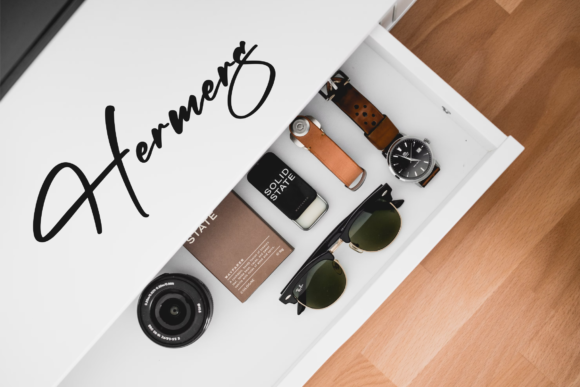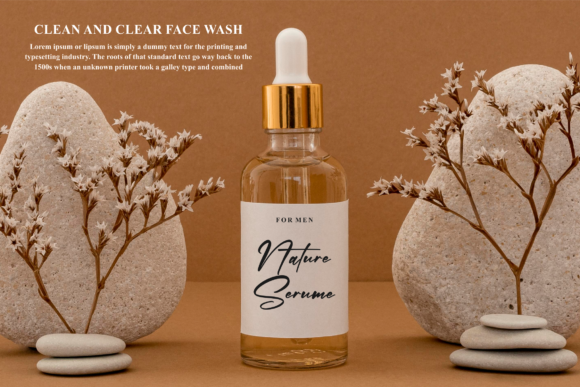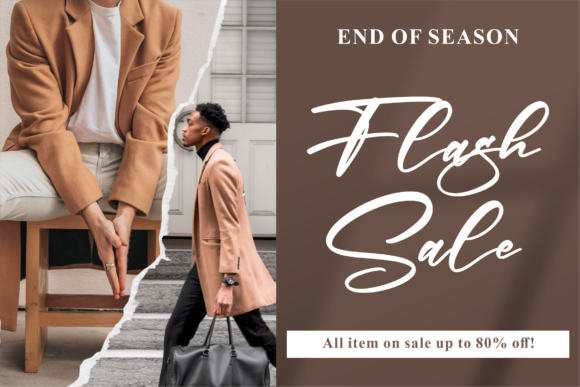
Introduction to Fonticha Font
Fonticha is a delicate and stylish handwritten font.
It looks both beautiful and adaptable, and it will most certainly make each of your creations come alive .
Key Features of Fonticha Font
Why Choose Fonticha Font?